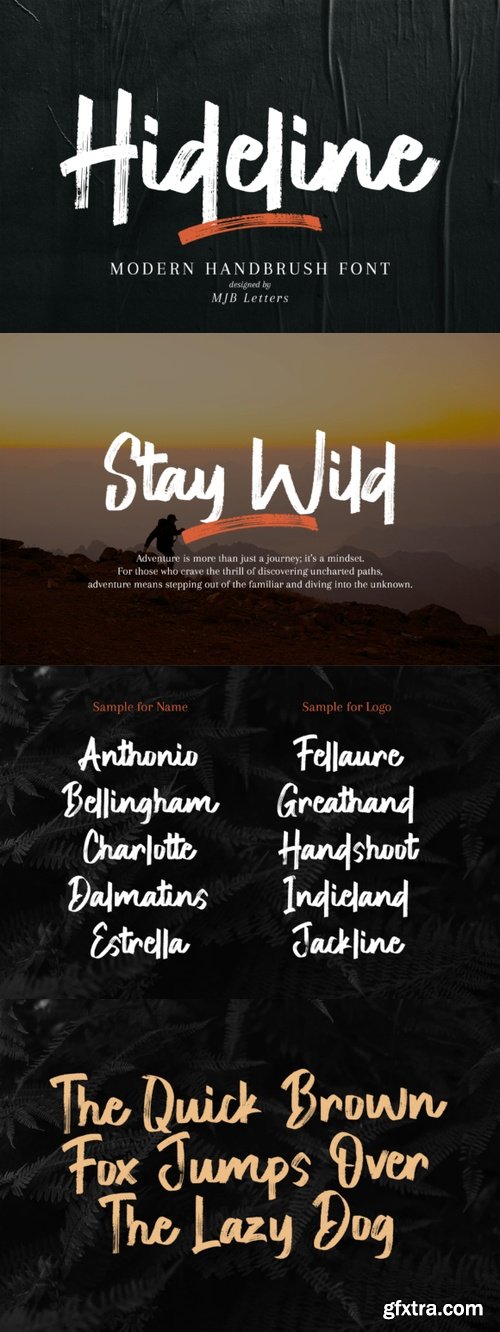
Hideline Font
- Hideline Handwritten Brush Font is a bold and textured handwritten font that combines a natural, expressive feel with a touch of strength. Hideline font features bold strokes and a textured finish, giving it an organic, handcrafted appearance. Additionally, Hideline font is perfect for a variety of design projects, adding a bold and dynamic character to any creation.